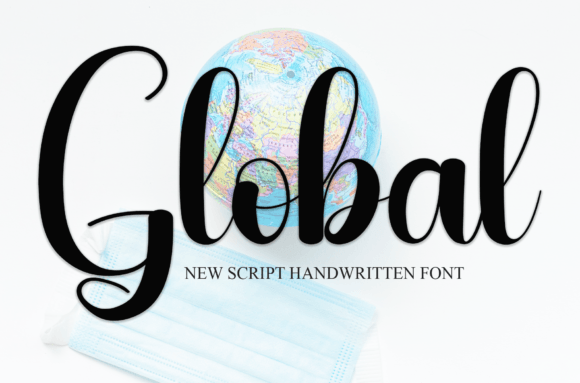
Looking for the best fonts to use on your modern resume? Look no further than Global Font! Created by the talented William Jhordy, Global is a script font that is both sweet and friendly, making it perfect for a variety of design needs.
One of the standout features of Global is its fresh and neat appearance. Whether you're writing wedding invitations, designing greeting cards, or putting together any other type of project that requires a fun touch, Global is the ideal font to use. Its handwritten style adds a personal touch to any design, making it feel warm and inviting.
But Global isn't just a pretty face - it's also highly functional. As one of the best fonts for modern resumes, it will help your resume stand out from the crowd and grab the attention of potential employers. With its eye-catching script style and professional yet playful appearance, Global is the perfect font for anyone looking to elevate their resume and make a lasting impression.
In addition to its use on resumes, Global can also be used for a variety of other design projects. Its versatility makes it a great choice for everything from logos and branding to social media graphics and more. And with its keyword-rich name, Global is sure to attract plenty of attention from users searching for the best fonts to use on their projects.